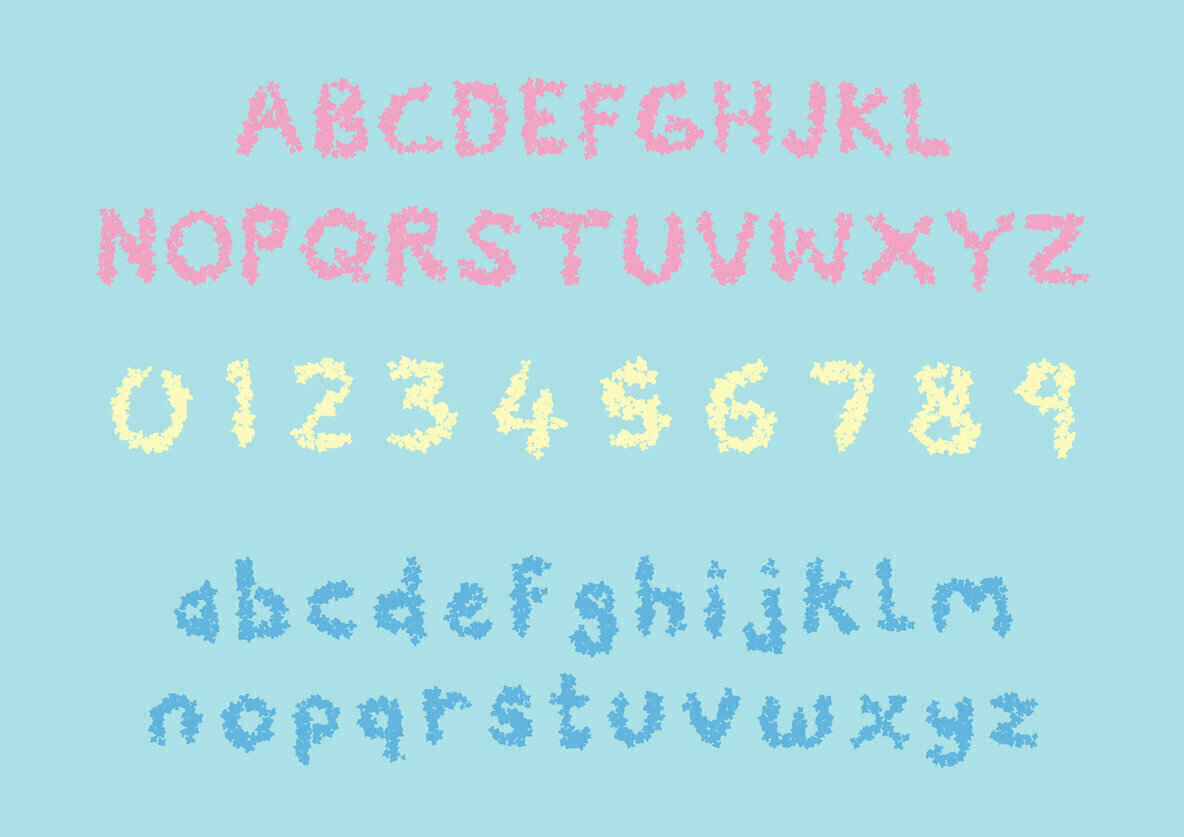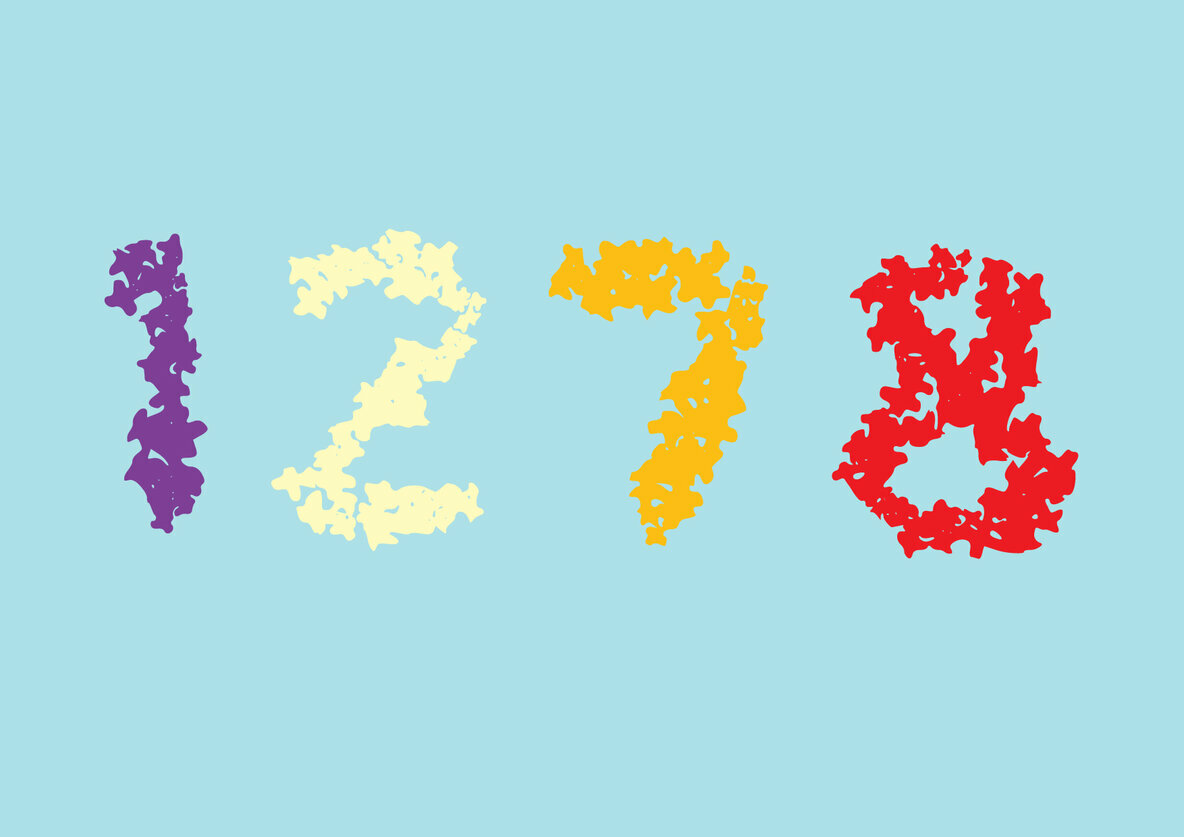
Chalk Font
Chalk
Chalk is a fun and playful display font. Get creative with its unique look, and use it to brighten up any crafting project with its chalk stroked inspired style.